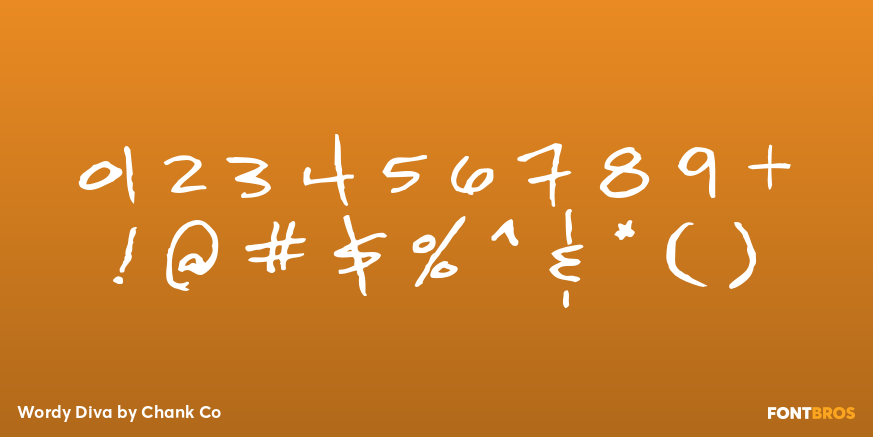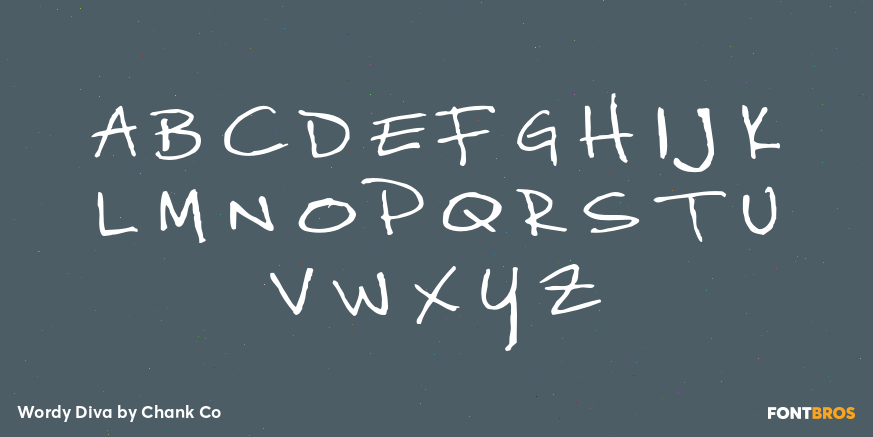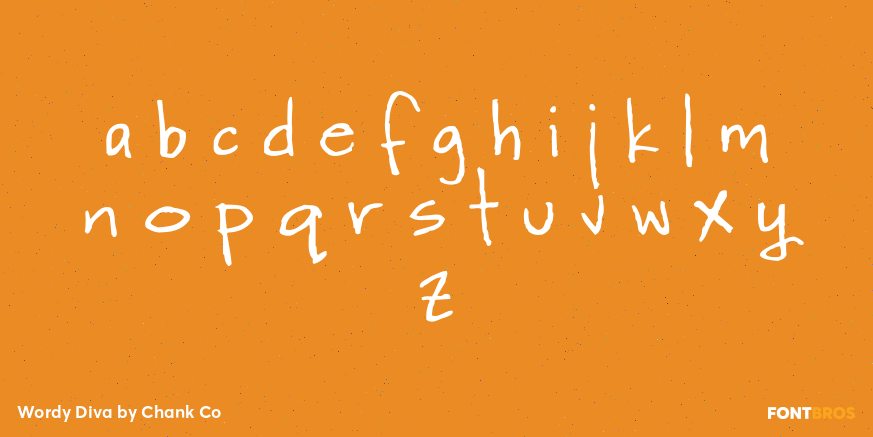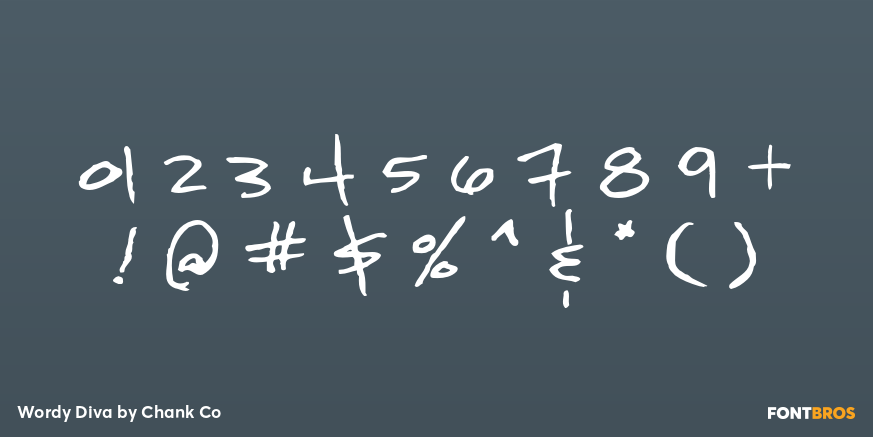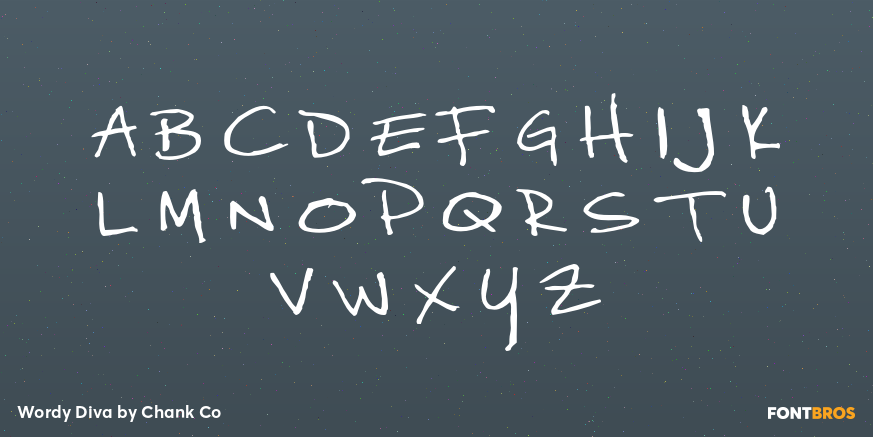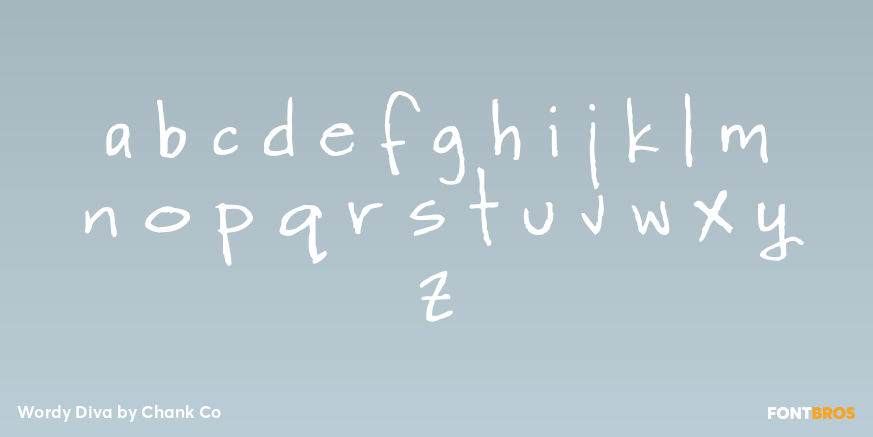
Wordy Diva
Font Family by Chank Co
Wordy Diva was drawn in 1995 by Lisa Bralts and faxed to Chank Diesel. Chank converted the scan to font format, and it soon became one of Chank's most popular handwriting fonts.